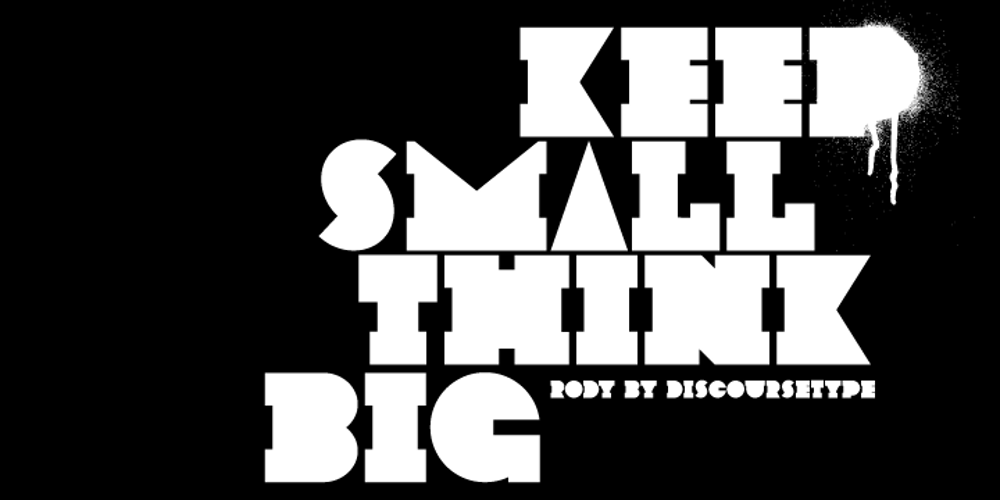
Rody
Rody font
Rody Font Family was designed by Jonathan Bennett and published by Discourse Type. Rody contains 1 styles and family package options. Rody is the inspired by early russian typographic designs and works well with Lazar. It comes with small caps and a range of ligatures.